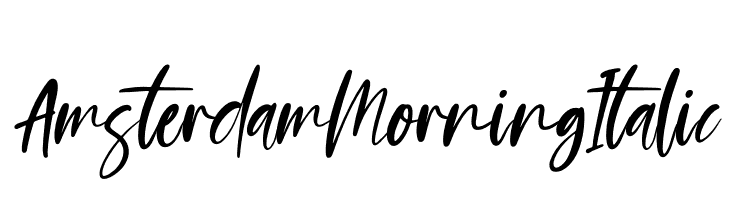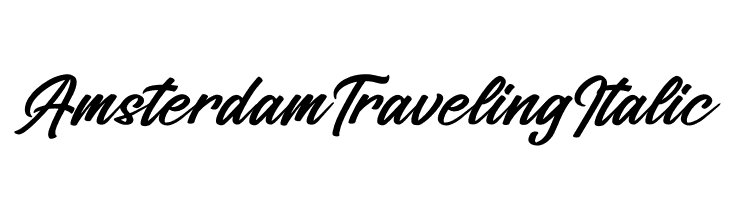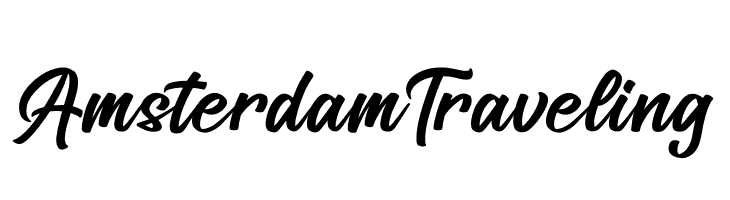
A lively, flowing script font with elegant cursive letterforms and dynamic contrast.
A flowing, elegant script font with bold, dynamic curves and italic styling.
A bold, expressive handwritten font with dynamic strokes and a modern flair.
A lively, cursive font with a natural, handwritten feel and dynamic strokes.
A delicate and flowing script font with elegant curves and a handwritten feel.
A modern, handwritten font with fluid strokes and a brush-like texture.
A modern, elegant handwritten font with fluid, cursive strokes.
A playful, casual handwritten font with fluid strokes and a lively feel.
A bold, flowing script font with elegant, connected strokes.
A bold, cursive italic font with a flowing, handwritten style.